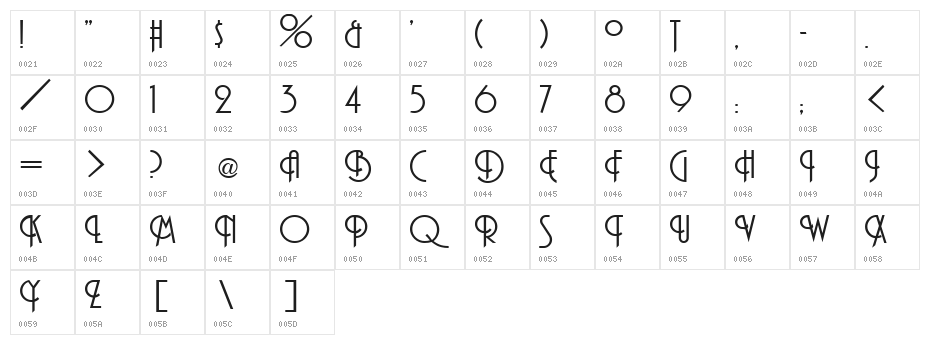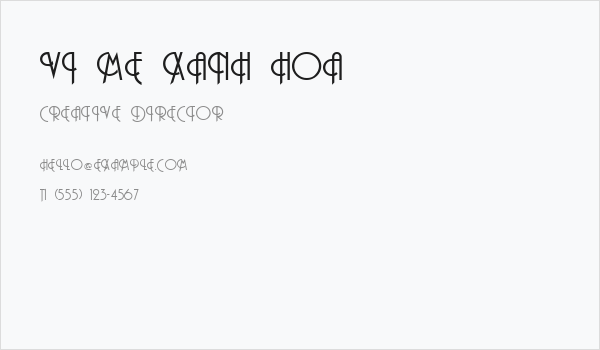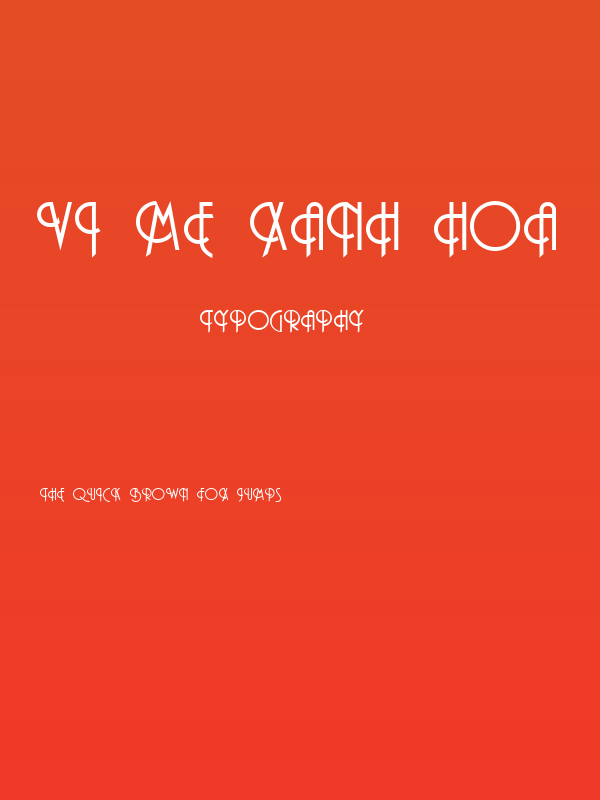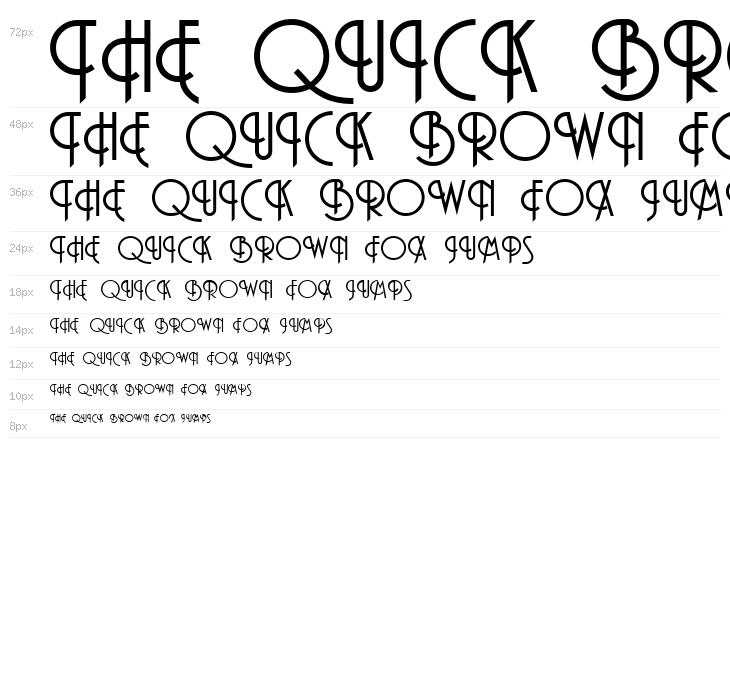
VI Me Xanh Hoa Font
VI Me Xanh Hoa Description
This font features a unique and artistic style with a modern twist. The characters are designed with a combination of geometric shapes and sharp angles, creating a futuristic and avant-garde appearance. The uppercase and lowercase letters maintain a consistent design, with each character exhibiting a distinct and bold presence. The numerals are crafted to match the overall aesthetic, ensuring a cohesive look across all elements. Special characters are included, each designed to complement the font's unique style. This font is perfect for projects that require a standout, eye-catching typeface.
| Proposed Projects | Ideal for branding, posters, album covers, and any project needing a bold, modern look. |